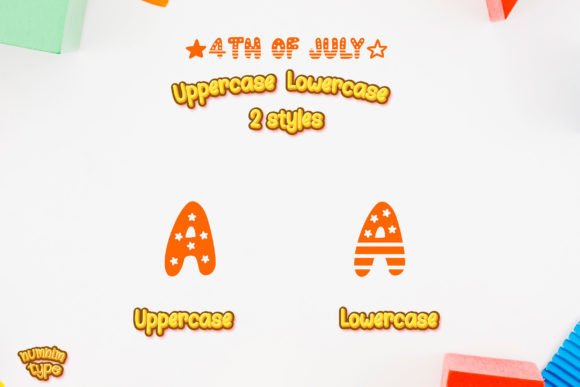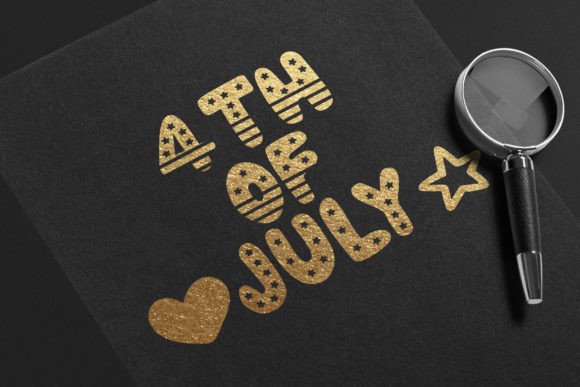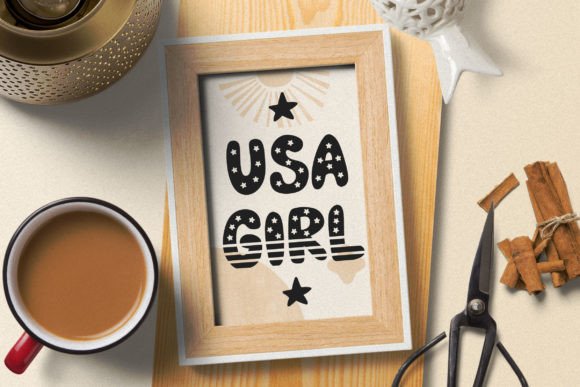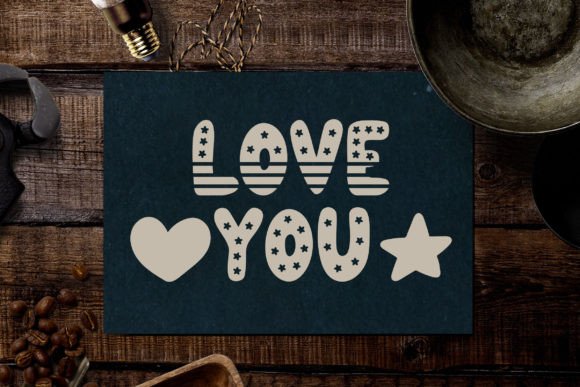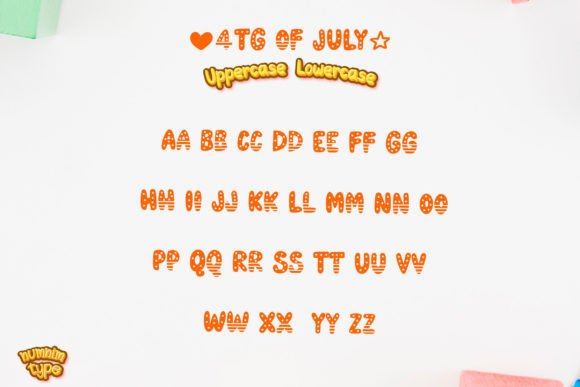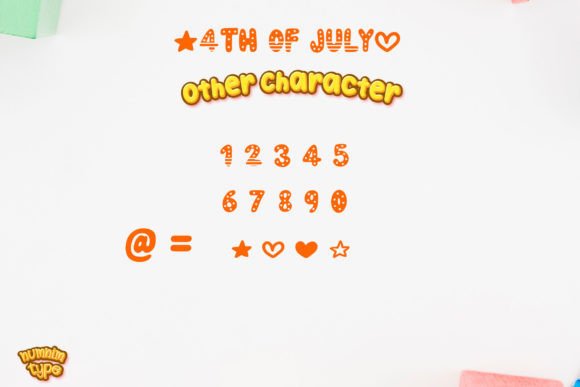
Introducing the 4th of July Font: A Fun and Playful Decorative Font for Your Patriotic Projects
Are you looking for a unique and eye-catching font to make your 4th of July projects stand out? Look no further! The 4th of July Font is a cool and uniquely crafted decorative font that is perfect for creating patriotic and festive designs. With its fun and playful characters, this font is ideal for a wide range of projects, from stickers and mugs to t-shirts, ornaments, and independence day event cards.
What Makes the 4th of July Font So Special?
The 4th of July Font is a decorative font that is specifically designed to add a touch of patriotism and fun to your designs. Its unique and playful characters make it perfect for creating eye-catching and festive designs that are sure to impress. Whether you’re a designer, crafter, or DIY enthusiast, this font is a must-have for any 4th of July project.
The 4th of July Font is a versatile font that can be used for a wide range of projects, including:
- Stickers: Create fun and patriotic stickers for kids and adults alike.
- Mugs: Design custom mugs for 4th of July parties and gatherings.
- T-shirts: Create festive t-shirts for a fun and casual way to celebrate the 4th of July.
- Ornaments: Design custom ornaments for a patriotic touch.
- Independence Day Event Cards: Create custom event cards for 4th of July parties and gatherings.
- Event Invitations: Design custom invitations for 4th of July events.
Why Choose the 4th of July Font?
There are many reasons why the 4th of July Font is the perfect choice for your patriotic projects. Here are just a few:
- Unique and playful characters: The 4th of July Font features unique and playful characters that are sure to add a touch of patriotism and fun to your designs.
- Versatile: The 4th of July Font can be used for a wide range of projects, from stickers and mugs to t-shirts and ornaments.
Tips for Using the 4th of July Font
Here are a few tips for using the 4th of July Font in your designs:
- Experiment with different colors: The 4th of July Font looks great in a variety of colors, including red, white, and blue.
- Use it with other patriotic elements: Combine the 4th of July Font with other patriotic elements, such as stars and stripes, to create a festive design.
The 4th of July Font is a fun and playful decorative font that is perfect for creating patriotic and festive designs. With its unique and playful characters, PUA encoding, and versatility, this font is a must-have for any 4th of July project. Whether you’re a designer, crafter, or DIY enthusiast, the 4th of July Font is sure to add a touch of patriotism and fun to your designs.